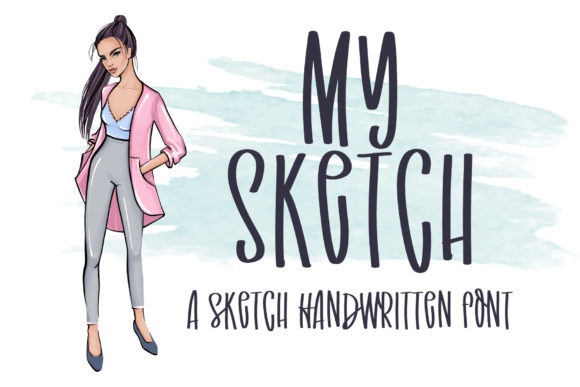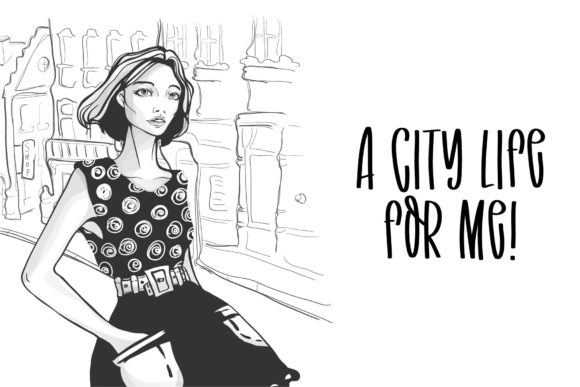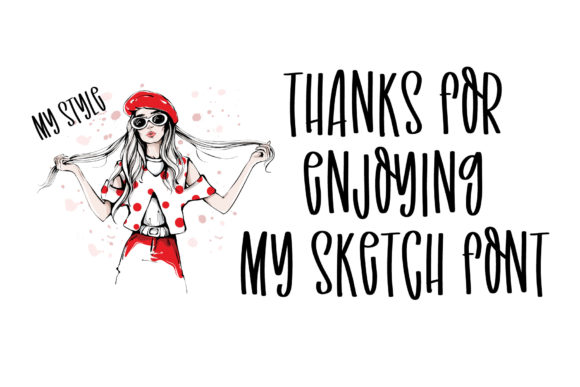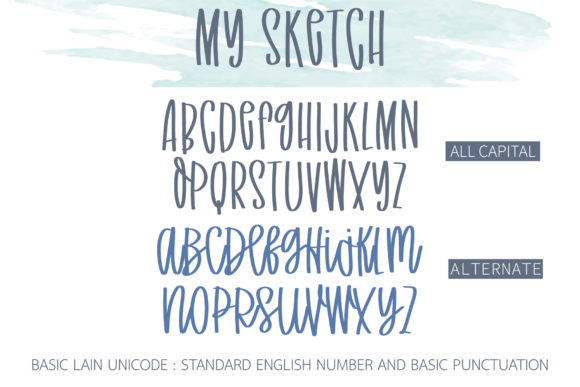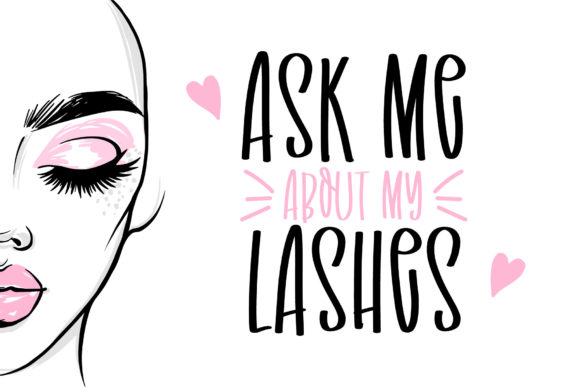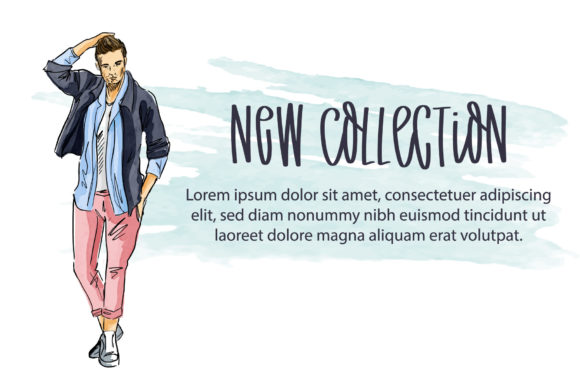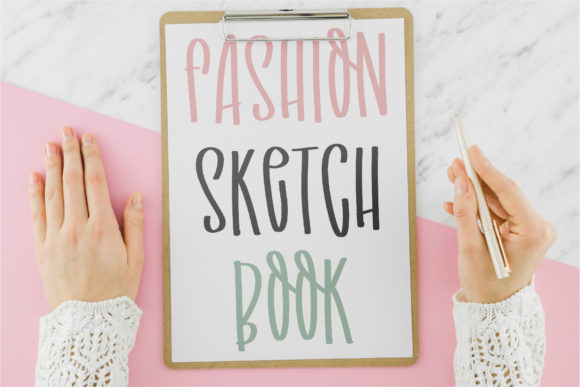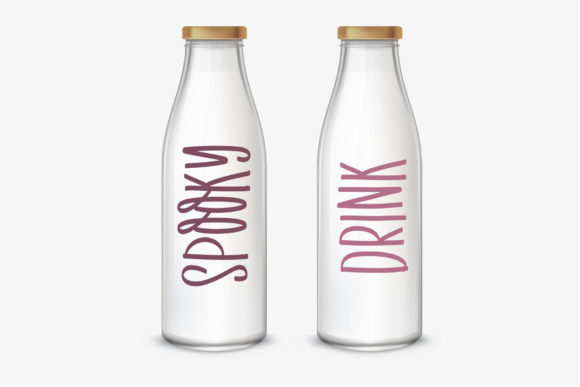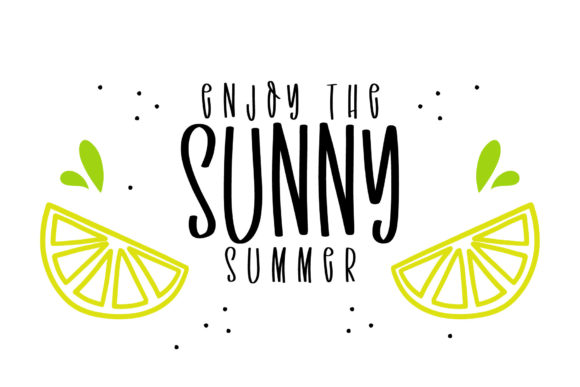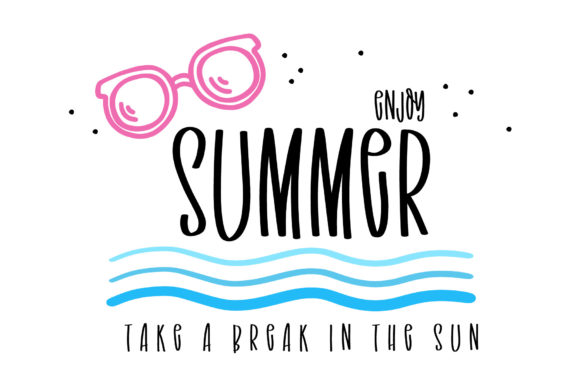
My Sketch Font
About My Sketch Font
My Sketch is a cute and relaxed handwritten font. Its natural and unique style makes it incredibly a large pool of designs. The only limit is your imagination!